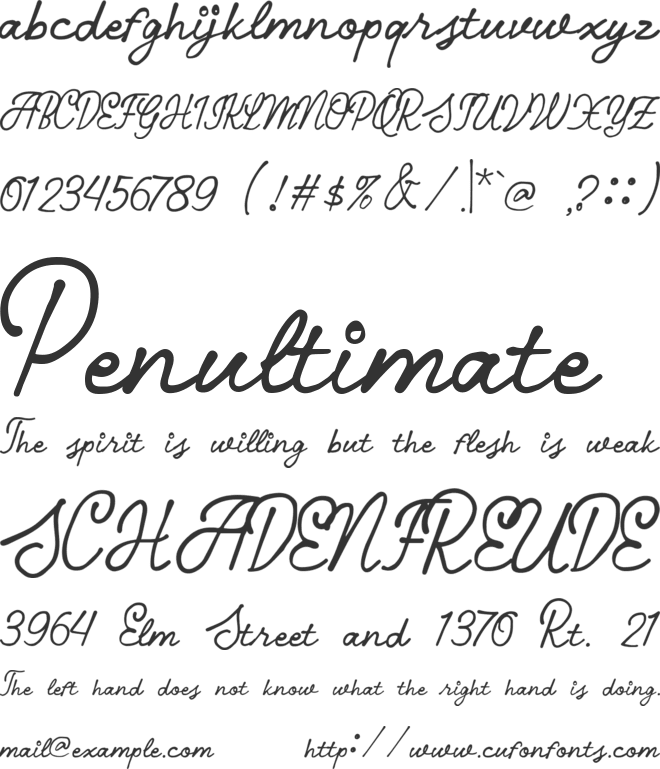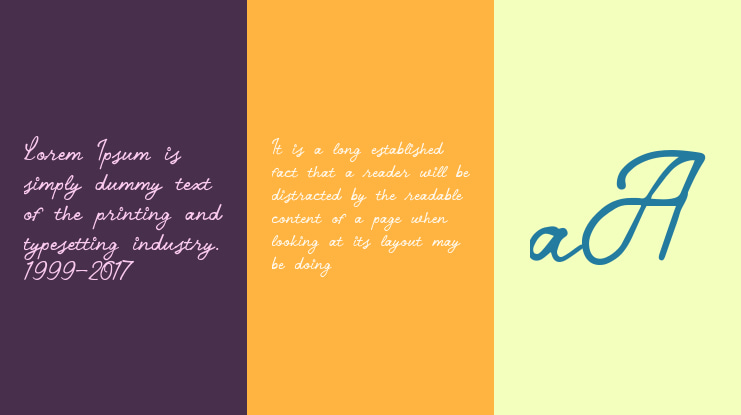
Golden Crumbs Font Family
Letterhend Studio
Golden Crumbs comes in warm and delightful, mixing a soft handwritten script with a playful sans that feels like fresh treats straight out of the oven.
by Letterhend Studio